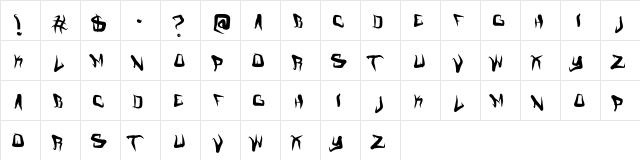
FM Creep Mode Regular
Design Context for FM Creep Mode Typeface
FM Creep Mode carries an unsettling edge — its distorted letterforms are built to unsettle, perfectly suited to horror, Halloween, and dark creative work.
Perfect for anything that needs to unsettle — game titles, horror branding, and macabre invitations.
Font Pairing: Pair with a clean neutral sans-serif for body copy to let FM Creep Mode's character lead without overwhelming the composition.
Pro Tip: Use FM Creep Mode at larger display sizes for maximum impact. Consider generous tracking to let the disturbing character of each letterform breathe.